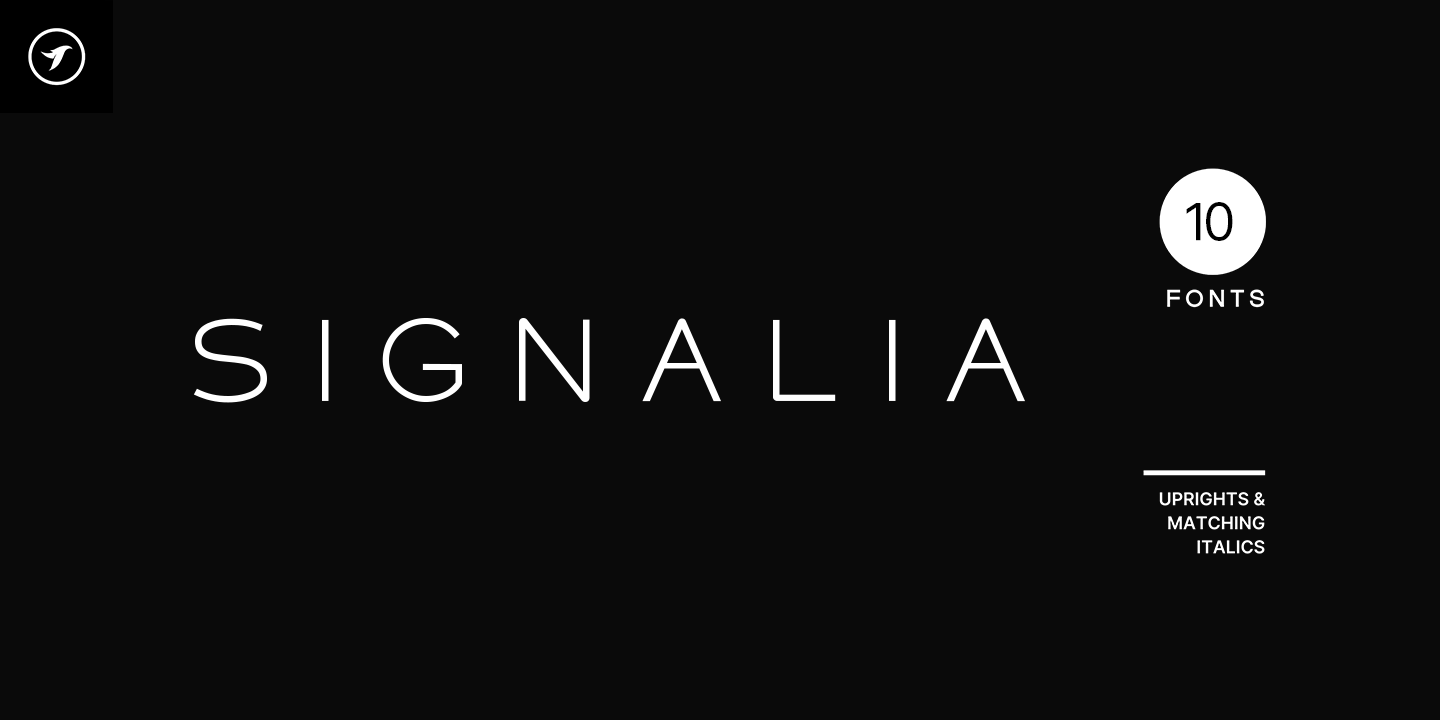
Signalia Font is perfect for professional signage systems, wayfinding design projects, navigation interface applications, traffic management communications, public space directional materials, architectural signage solutions, safety instruction displays, transportation hub graphics, emergency evacuation systems, and clear communication brands that require readable typography with signage clarity and directional excellence.
What makes Signalia Font so exciting is its exceptional embodiment of signage optimization through carefully engineered letterforms that maximize visibility and comprehension across diverse viewing conditions and distances. This font features highly legible character shapes with enhanced contrast and systematic proportions that ensure instant recognition and clear communication in both indoor and outdoor environments. The signal-focused design approach prioritizes functionality and accessibility while maintaining professional aesthetics, making it perfect for organizations that need to provide clear directions, safety information, and essential public communications with absolute reliability.
The Signalia Font family includes multiple weights and styles: Light, Regular, Medium, Bold, Black, Condensed, and their corresponding Italic variants. Each weight maintains the signature signage clarity character while offering comprehensive flexibility for wayfinding design applications and directional typographic systems.
Signage specialists consistently choose Signalia Font Free Download for projects requiring professional wayfinding typography that embodies the principles of clear communication and directional excellence. Whether you're developing public signage systems, creating navigation interfaces, designing safety communication materials, or crafting emergency information displays, this font delivers exceptional clarity and signage authenticity. The font's comprehensive character set includes directional symbols and wayfinding styling options while ensuring optimal performance across both digital and print signage applications, making it an indispensable tool for designers working on communication projects that demand clear, visible, and professionally optimized typography solutions with signage excellence and directional clarity.